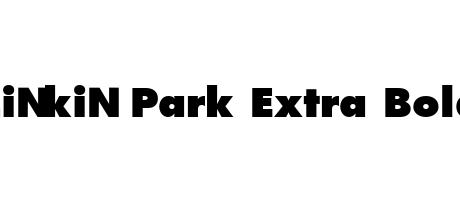
Linkin Park
By Chase Babb
Linkin Park Extra Bold is a bold, sans-serif typeface. Its chunky, strong letterforms convey a powerful, confident message. The letters are uniformly weighted, creating a sense of solidity and impact. Slight variations in letterforms add a touch of subtle character to the overall boldness. The font exudes energy and attitude.